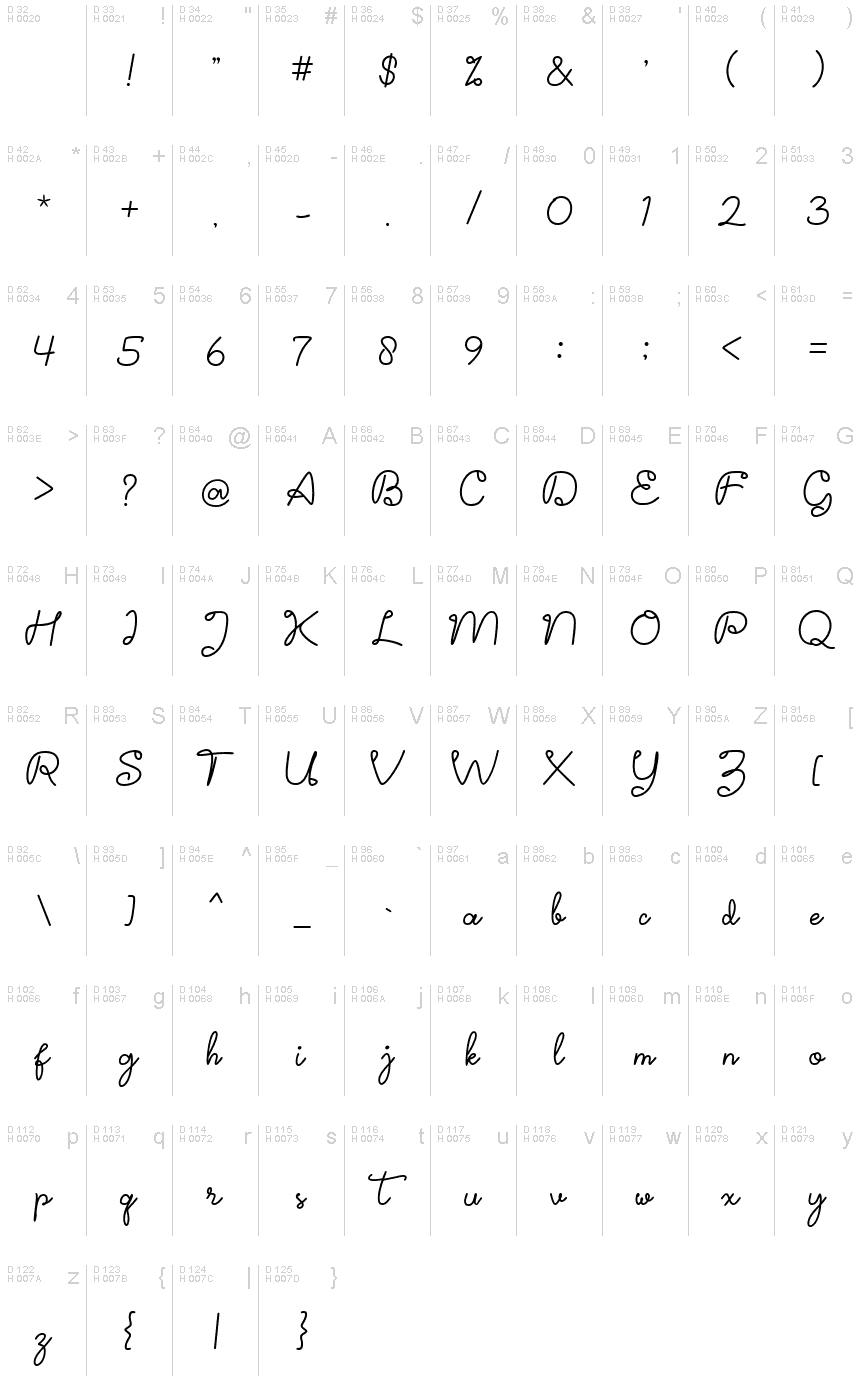
Hello I'am Coming (version 2)
Hello I'am Coming (version 2) is a beautiful handwritten font that exudes creativity and playfulness. Designed by Alifinart, this semi-light typeface is perfect for projects that require a personal touch, such as invitations, greeting cards, or blog posts. Its slight curves and uneven lines give off an authentic feel that perfectly captures the essence of handwritten notes. Whether you're creating a logo for your small business or designing an album cover for your band, Hello I'am Coming (version 2) is the perfect font to add some personality to your project. Try it out today and see how it transforms your designs!
"Hello I am coming" is a font that was released on February 20, 2020 (02/20/2020) and this is the font for the second version (release March 26, 2020).
"Hello I'm Coming Handwritten Font", is a handwritten font.
This font is perfect for brands in the fields of natural, cosmetics, travel, blogging and others that require a signature style font.
"Hello I'm Coming Handwritten Font", is a handwritten font.
This font is perfect for brands in the fields of natural, cosmetics, travel, blogging and others that require a signature style font.